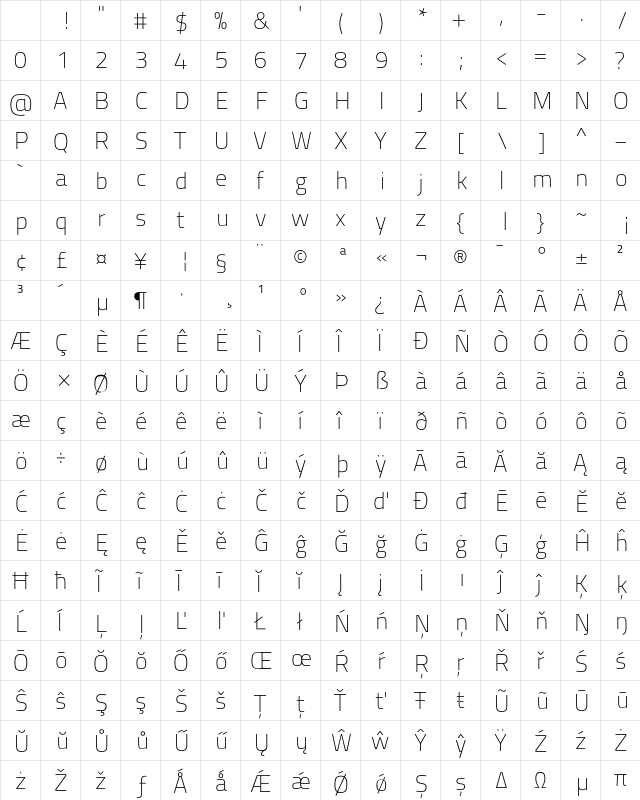
Complete TitilliumText22L Thin glyph index. Displaying only characters natively supported by TitilliumText22L Thin font.
TitilliumText22L is a composed and adaptable typeface that performs quietly and consistently across a wide range of design contexts. Its slender proportions lend an understated elegance to any composition.